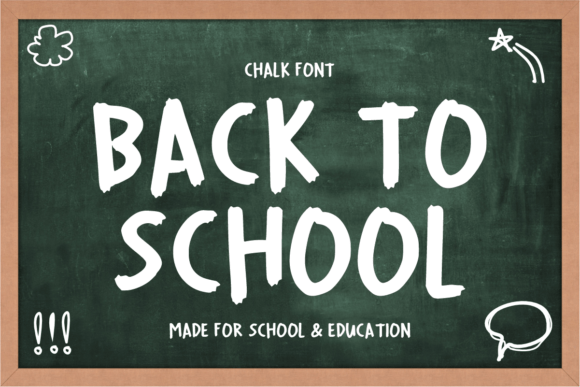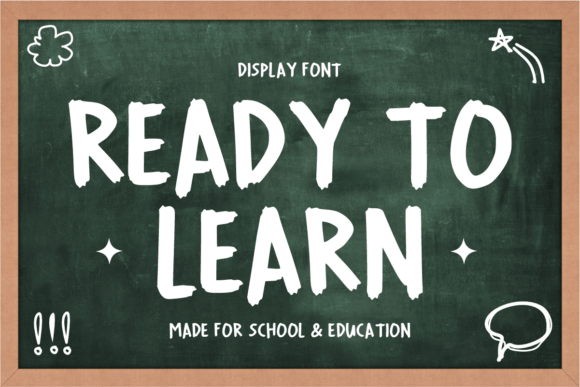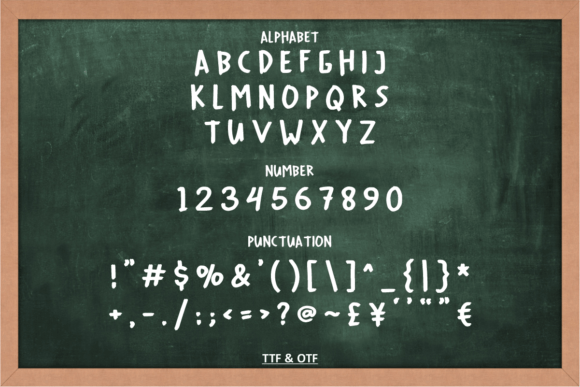
Bring Back the Joy of Learning with the Cheerful Chalk Font
Do you remember the thrill of scribbling on a chalkboard as a child? The feeling of creating something with your own two hands, the smell of the chalk, and the sound of the teacher’s whistle as the board was erased? For many of us, those memories evoke a sense of nostalgia and happiness.
Now, designers can bring that same nostalgic charm to their digital designs with the Cheerful Chalk Font. This beautifully textured display typeface is designed to mimic the raw, smudged, and playful look of real chalk on a chalkboard. With its friendly and bouncy rhythm, it radiates a warm, educational energy that is both inviting and professional.
As a valuable addition to any designer’s toolkit, the Cheerful Chalk Font is perfect for creating classroom posters, teacher resources, and playful branding. Its authentic hand-drawn feel instantly connects with students and parents alike, making it a must-have for educators and designers looking to capture the joy of learning.
Cheerful Chalk Font Key Features
- Unique, Hand-Drawn Design: Cheerful Chalk Font features a playful, hand-drawn design that adds a touch of whimsy to any text.
- Characteristics: Cheerful Chalk Font features a mix of uppercase and lowercase letters, numbers, and punctuation marks, making it a versatile font for various design projects.
- Font Family: The font family includes 6 styles: Regular, Italic, Bold, Bold Italic, Outline, and Shadow, allowing designers to choose the perfect style to match their design needs.
Review of Cheerful Chalk Font
Overall, I think the Cheerful Chalk Font has a lot going for it. ✨ The font’s playful and whimsical feel makes it perfect for projects that need a touch of nostalgia and fun. The lettering is smooth and easy to read, which is great for body text and headings alike.
The font’s versatility is also a major plus. ✨ It works well in both digital and print formats, and its wide range of weights and styles makes it easy to customize for different applications. Additionally, the font is highly legible, even at small sizes, which is a must for any designer working with limited screen space or print constraints.
While the Cheerful Chalk Font is a great choice for many projects, there are a few limitations to keep in mind: ⚠️ The font may not be the best choice for formal or professional applications, as its playful feel may come across as unprofessional. Additionally, the font’s lack of bold or condensed weights may limit its use in certain situations, such as headings or titles.
In conclusion, the Cheerful Chalk Font is a great choice for designers looking for a fun and versatile font that’s perfect for a wide range of projects. While it may not be the best fit for every project, its strengths make it a valuable addition to any designer’s toolkit.
- Playful and whimsical feel
- Smooth and easy to read lettering
- Wide range of weights and styles
- Highly legible, even at small sizes
- Digital and print-friendly
Tips for Getting the Most Out of Cheerful Chalk Font
Use the font in combination with bright colors and playful graphics to create a fun and energetic design. Experiment with different font sizes and styles to create visual interest. Avoid using the font in small text sizes or in situations where readability is crucial.
The Cheerful Chalk Font is perfect for creating playful and whimsical designs, such as children’s party invitations, educational materials, or social media graphics. It’s also great for adding a touch of personality to business presentations or marketing materials.